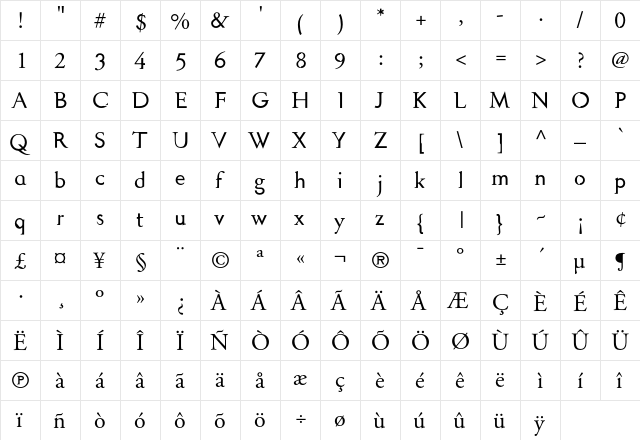
DiscordPlain Regular Font Preview
DiscordPlain Regular
DiscordPlain Regular Font Details
Design Context for DiscordPlain Typeface
DiscordPlain is a composed and adaptable typeface that performs quietly and consistently across a wide range of design contexts.